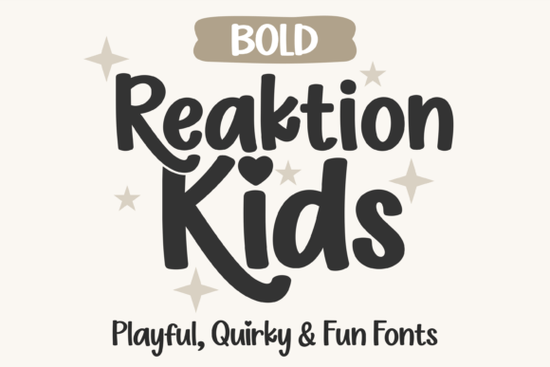
If you are designing a playful logo for a daycare or creating a fun t-shirt for a little one, you need a typeface that matches that energy. The Reaktion Kids Bold Font is a handwritten, bubbly font designed specifically to be both sturdy and friendly. With its thick, smooth strokes and the charming heart-dotted "i," it immediately catches the eye while remaining easy to read for young children. It is available as a single installable file, but it is actually part of a larger family that includes Regular, Line, and Open styles, giving you plenty of room to experiment.
What makes the Reaktion Kids Bold Font stand out?
Many kids' fonts can look messy or become hard to read at smaller sizes. Reaktion Kids Bold solves this by using thicker, rounded strokes. This gives it a strong presence on a page or screen without losing its soft, playful personality.
- The Heart Dots: The letters "i" and "j" come with cute heart-shaped dots. This adds a personalized, whimsical touch to names or special words.
- Built for Layering: Because it is part of a set (with Line, Open, and Regular styles), you can stack the fonts on top of each other. This creates a dynamic, colorful 3D look that works wonderfully for poster titles or sticker designs.
- PUA Encoding: You do not need advanced software to use the special characters. If your program supports PUA encoding (like Cricut Design Space or Silhouette Studio), you can easily access the heart dots and other alternates.
Can I use this font for my Cricut or Silhouette projects?
Because the font is PUA encoded, you can type out your text and easily change the "i" and "j" to their heart-dot versions using the Glyphs panel or Character Map. This makes it simple to customize names for personalized gifts, party favors, or classroom labels without needing to draw anything by hand. For display purposes in digital planners or scrapbooking, the Daily Mail magazine font offers a completely different, more elegant aesthetic for grown-up projects.
What kind of projects work best with this font?
Thanks to its bold weight and clear letterforms, Reaktion Kids Bold is very versatile. It is not just for digital designers; it is a favorite among print-on-demand sellers and hobbyists.
- Print-on-Demand: It looks fantastic on t-shirts, tote bags, and posters. The bold lines ensure the design stays visible and readable even after printing.
- Home Decor: Use it for nursery artwork or custom signs. The friendly shapes fit right in with modern, playful decor.
- Education: Perfect for classroom bulletin boards, flashcards, or educational worksheets. It is bold enough to grab attention but soft enough not to feel intimidating.
- Event Graphics: Great for birthday party invitations or children's event banners. If you are working on a specific project that needs a more rugged, adventurous look, take a look at the Broken Rudder font for contrast.
How do I access the heart-dot alternates?
Getting those special characters is easy once you know where to look.
This simple trick turns a standard word into a custom design element. For another great option that captures a similar handcrafted vibe, explore the creative children font selection we have available.
A good kids' font needs to balance fun with function. Reaktion Kids Bold manages to be incredibly playful without sacrificing readability. Its bold weight makes it reliable for physical products like stickers and tees, while the heart details keep it cute and personalized.